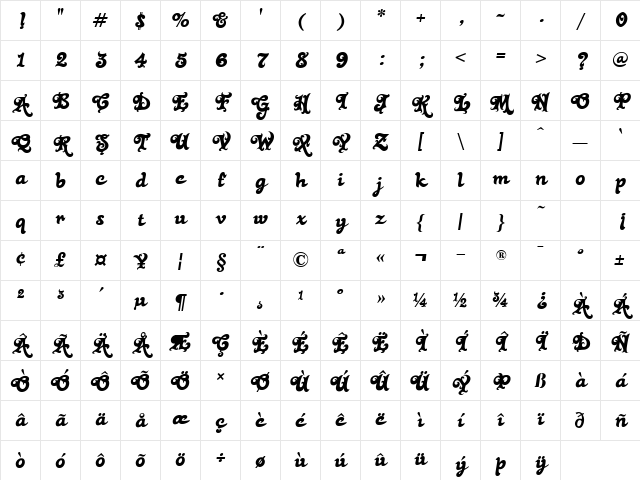
Black Rose Regular Free Font
Black Rose Regular
Design Context for Black Rose
Black Rose is a composed and adaptable typeface that performs quietly and consistently across a wide range of design contexts.